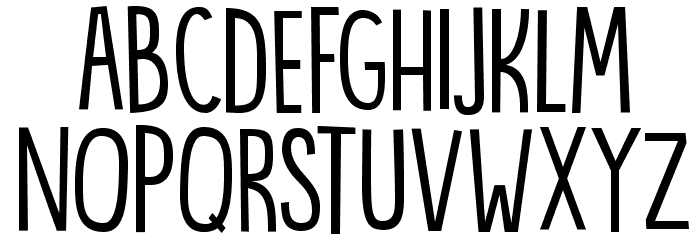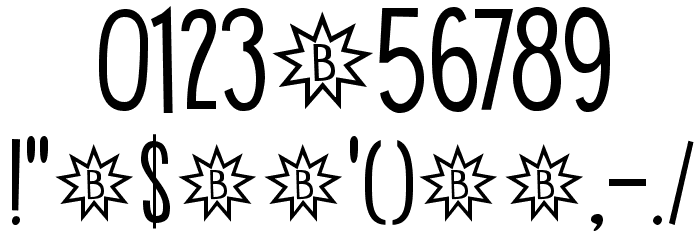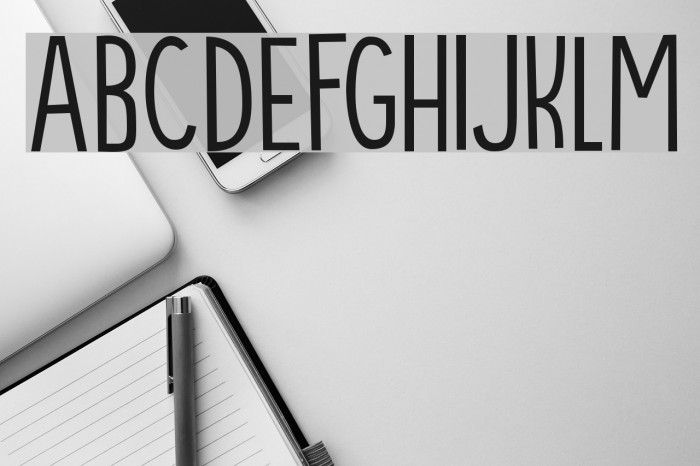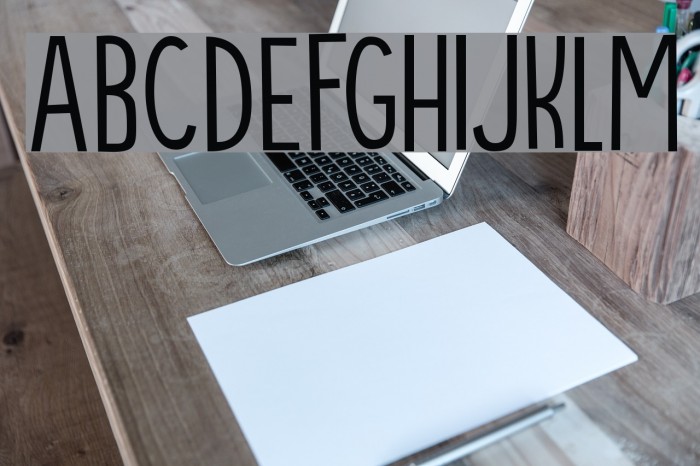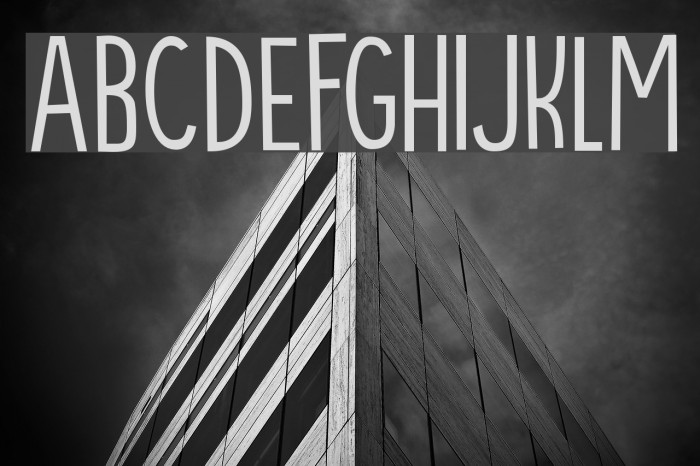
DK Bintang Regular Font
This font features a playful and decorative style with tall, narrow characters that have a hand-drawn appearance. The uppercase and lowercase letters maintain a consistent height, creating a uniform look. The numbers are similarly styled, with a whimsical touch that adds personality. Special characters include unique starburst designs that incorporate the letter 'B', enhancing the font's distinctive charm. The overall design is clean yet artistic, making it suitable for creative projects that require a touch of flair.
A playful, decorative font with tall, narrow characters and unique starburst symbols.
- Proposed Projects: Ideal for posters, invitations, children's books, and branding materials that seek a fun and artistic vibe.